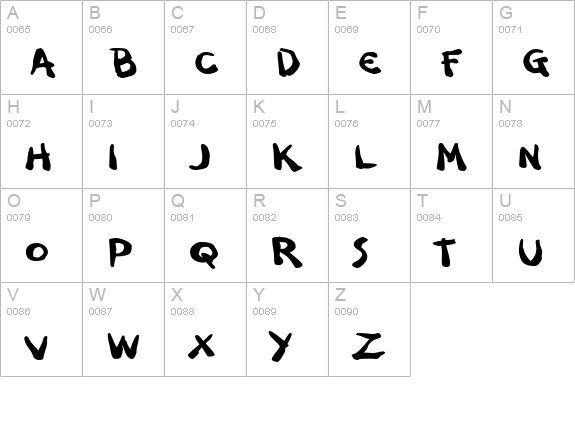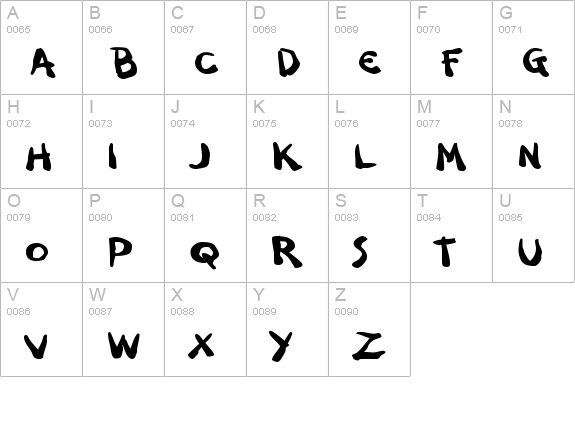
Dark Half BTN Ext Bold Font Details
Dark Half BTN Ext Bold is a strong, high-contrast variant in the Dark typeface family \xE2\x80\x94 well suited to headlines, attention-grabbing titles, and strong calls-to-action.